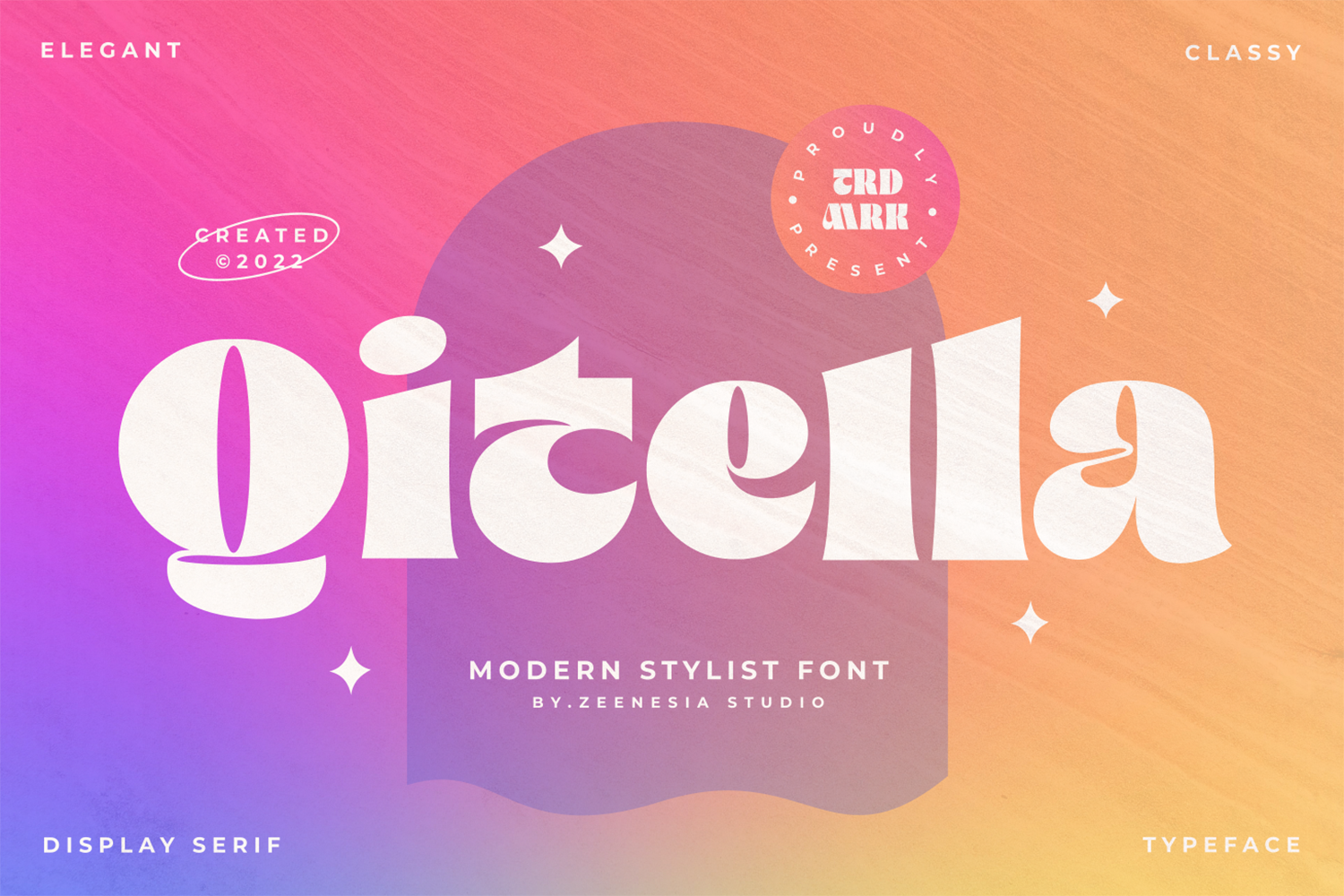
Qitella Free Font
Qitella Free Font is a bold style serif font with strong character and soft features. It’s a modern and classic serif font with a clear and bold look. It’s a very versatile font that works great in large.
Perfect for editorial projects, Logo design, web, clothing branding, product packaging, magazine headers, or simply as a stylish text overlay to any background image. This free typeface was designed by a talented Zeenesia Studio. If you like it don’t forget to check out the full version.